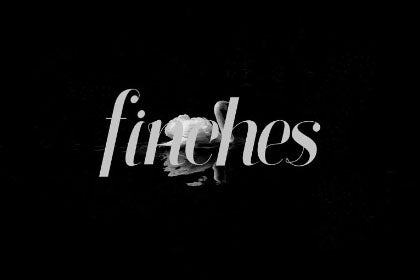
Free Finches Serif Italic Font
Download and enjoy this free finches serif italic font. Cool typeface to showcase your designs in a modern way. Download this font from the original source of Free Design Resources. This is absolutely fancy font so you can easily make world-class designs.